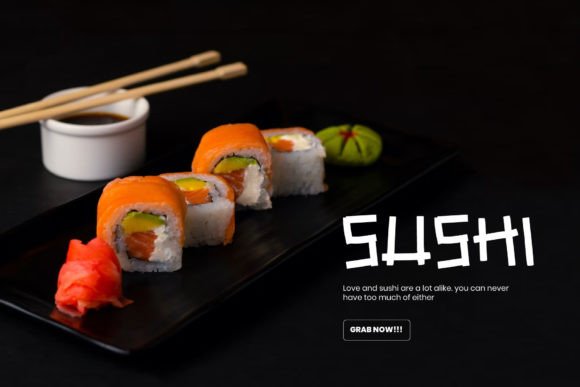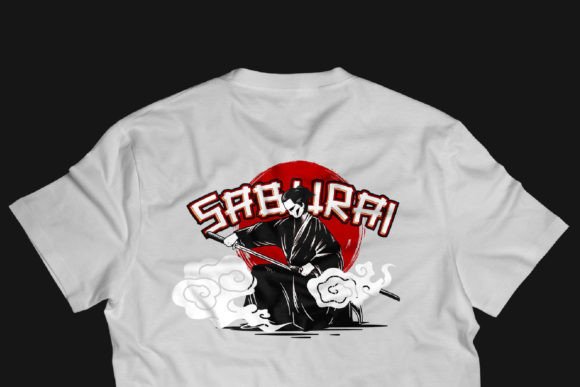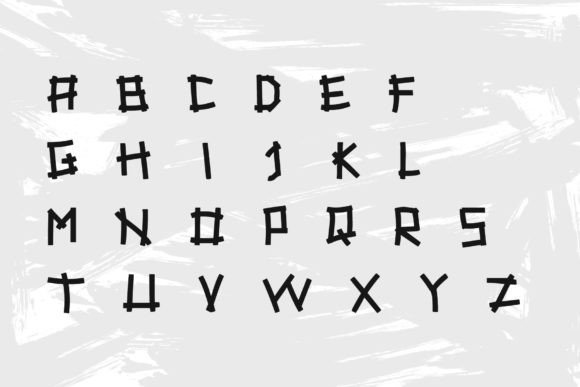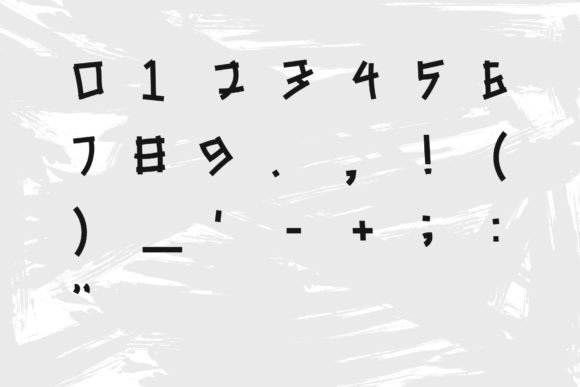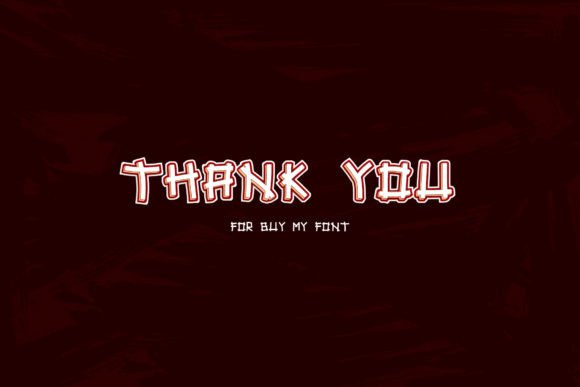
Introduction to Saburai Font
Have you ever found the perfect font to elevate your design, but it just doesn’t quite fit the vibe of your project? That was the case for many designers until the Saburai Font came along. This modern uppercase font is a game-changer for anyone looking to add a touch of Japanese flair to their creative project.
Whether you’re designing for a Japanese restaurant, clothing brand, or business with ties to Asian culture, the Saburai Font is an invaluable resource. Its sleek and contemporary design makes it perfect for display purposes, and with a transparent background, it’s easy to use in a variety of creative ways.
Key Features of Saburai Font
- High-quality font design with a unique aesthetic, perfect for creative projects.
- Features a high-resolution design, suitable for print and digital applications at 300 DPI.
- Suitable for use in a variety of creative contexts, including graphic design, digital art, and typography-based projects.
- Easy to customize and edit, thanks to its high-quality design and flexible formatting options.
Honest Review: Saburai Font
I recently had the chance to work with the Saburai Font, and I must say it’s been a game-changer for my design projects. This font is a high-quality design resource that offers a lot of flexibility for creative projects.
What works well is the font’s versatility. It’s available for free download, which is a huge plus for designers on a budget. The font’s design is sleek and modern, making it perfect for a wide range of creative projects. I particularly appreciate the transparent background feature, which allows for seamless integration with other design elements.
- ✨ High-quality design: The Saburai Font is well-designed and professional-looking.
- ✨ Versatile: Suitable for a wide range of creative projects, from logos to brochures.
- ✨ Transparent background: Allows for seamless integration with other design elements.
However, I did encounter some limitations. The font’s selection is limited, and I found myself wishing for more options. Additionally, the font’s compatibility with certain design software can be a bit wonky.
Overall, I’m impressed with the Saburai Font. It’s a high-quality design resource that’s perfect for designers looking for a free and versatile font. While it has its limitations, I’d definitely recommend it for any creative project.
Saburai Font
Tips for Getting the Most Out of Saburai Font
1. Experiment with different font sizes and styles to achieve a unique look.
2. Combine the Saburai Font with other high-quality fonts for a professional design.
3. Use the transparent background feature to create visually appealing graphics.
The Saburai Font is ideal for creative projects, such as:
1. Social media graphics.
2. Infographics.
3. Branding materials.
Alternatives to Saburai Font
Montserrat is a geometric sans-serif font that’s designed for use in urban environments. It’s a great design resource for creative projects that require a strong and modern look. Montserrat is similar to Saburai Font in its bold and edgy design, but it has a more geometric feel to it. You can download it for free and use it for commercial purposes.